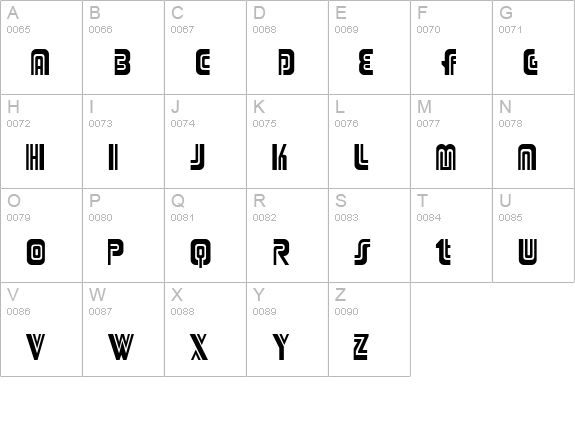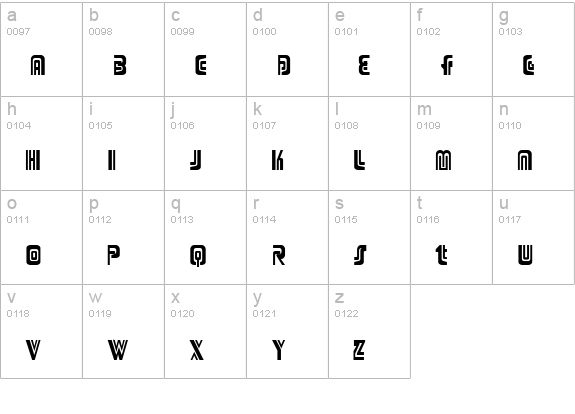
Adriator font is a stunning typeface that exudes elegance and sophistication. With its sleek lines and modern design, this font is perfect for a wide range of creative projects, from branding to editorial design. The Adriator font features a unique blend of sharp angles and smooth curves, creating a visually striking look that is sure to make a statement. One of the best things about Adriator font is that it is completely free to download. You can get your hands on this fabulous font at FontsMarket.com, where you can easily access it and start using it in your projects right away. Whether you're a designer looking to add a touch of modern flair to your work or a business owner in need of a stylish font for your branding materials, Adriator font is the perfect choice. Download it today and take your designs to the next level with this exceptional typeface.